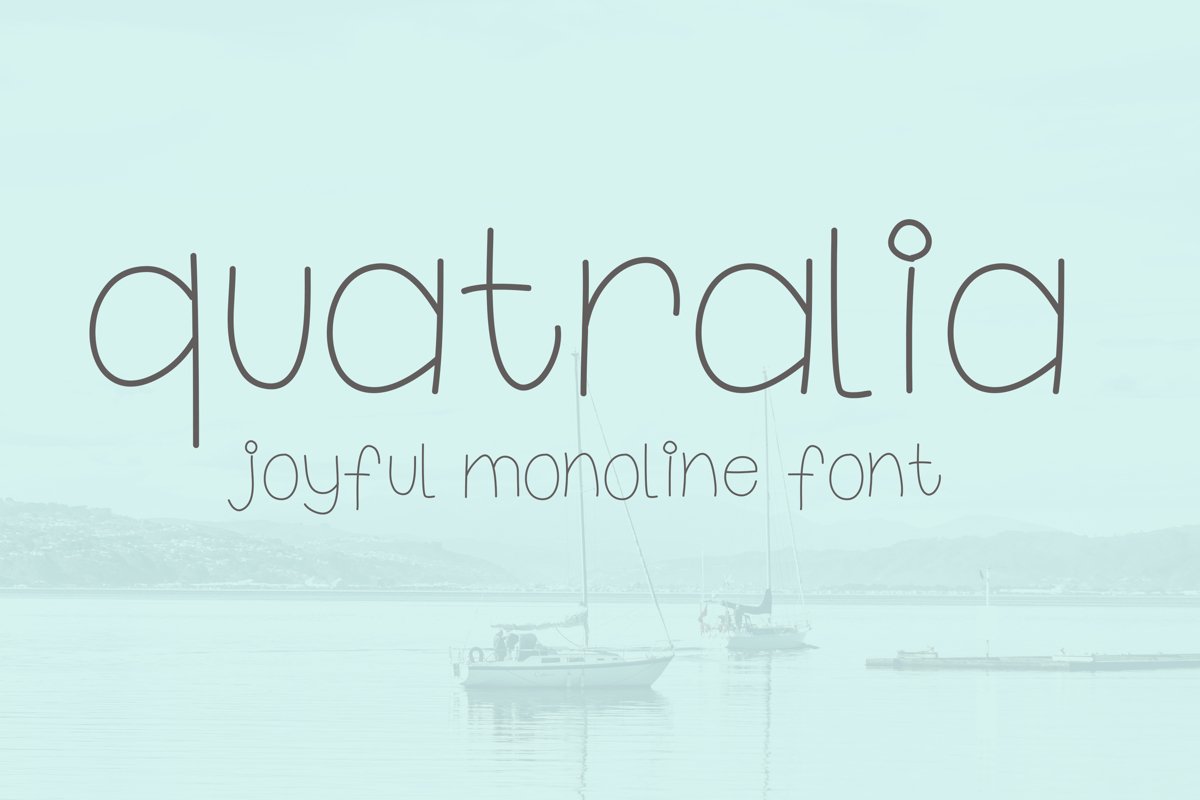
Quatralia font
quatralia
Quatralia is a sweet and friendly handwritten font. Its natural and unique style makes it incredibly fitting to a large pool of designs. The only limit is your imagination!